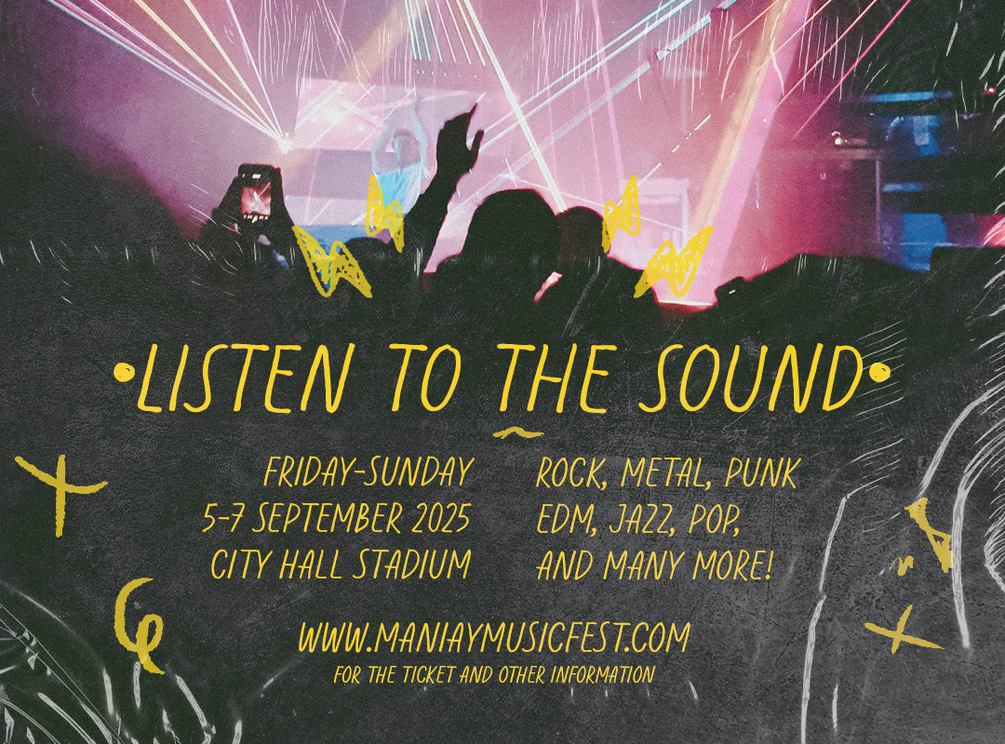
Diskotik – Modern Playful Handwritten Font
Diskotik is a vibrant handwritten display font crafted to bring fun, energy, and a personal touch to your design projects, ideal for youthful branding, dynamic posters, and energetic event promotions.
Inspired by the lively energy of music festivals and the casual style of handwritten notes, Diskotik carries a spirited and spontaneous charm. Each stroke feels personal and expressive, evoking enthusiasm, creativity, and youthful freedom. Its casual, hand-drawn letters capture attention and communicate a sense of excitement and liveliness.
Diskotik is perfect for music event posters, book covers, casual branding, invitations, packaging design, social media graphics, and playful merchandise. Its energetic vibe ensures your message is engaging, memorable, and full of personality, making your design stand out from the crowd.
- 2 Font Styles: Regular and Italic
- Font Style: Handwritten, Playful, Modern
- Basic Character Set (Uppercase, Lowercase, Numerals, Punctuation)
- OpenType Features: Alternates, Ligatures